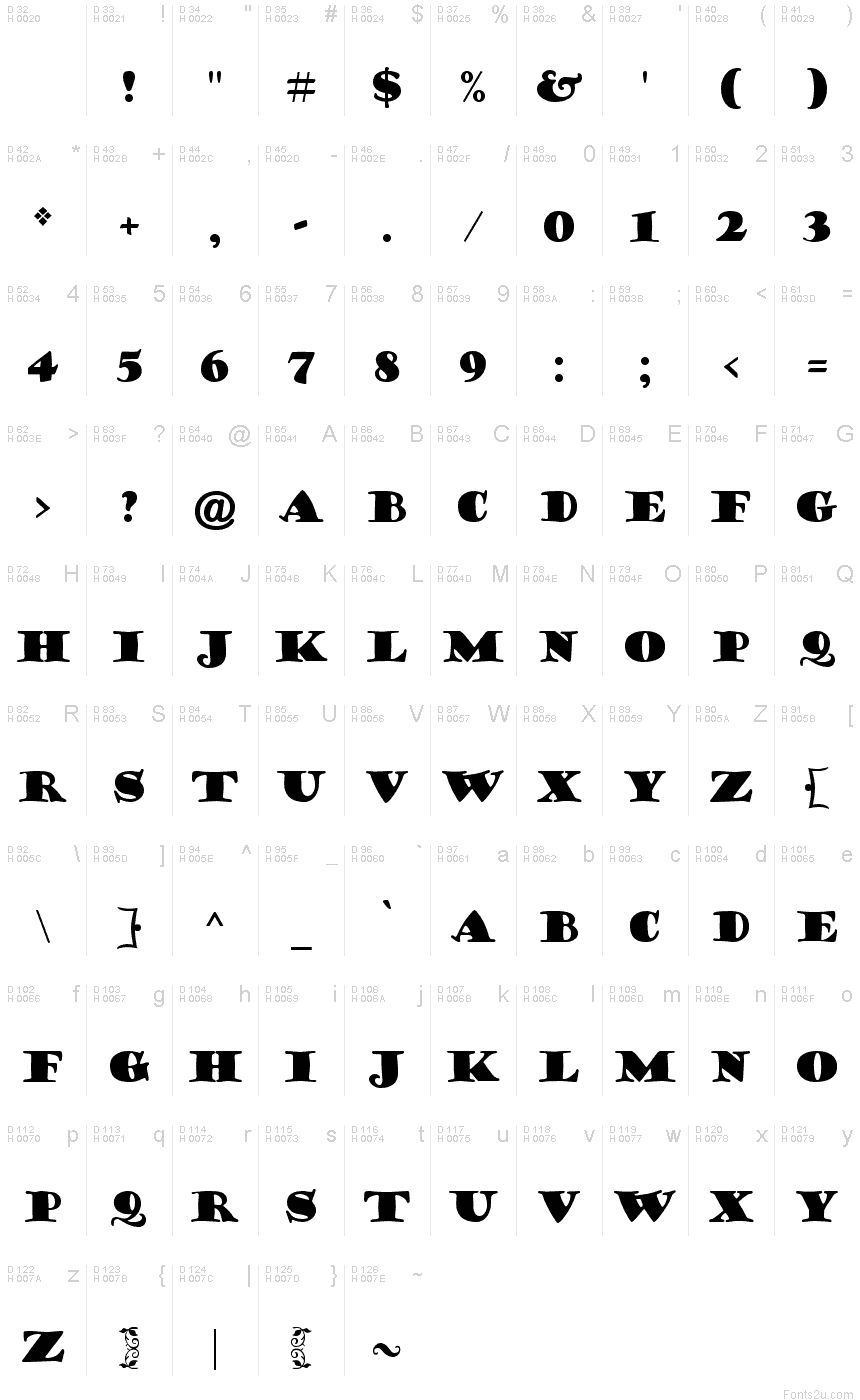
Goudy Stout
Goudy Stout font is a free retro headline typeface that lands on the page with a satisfying thud. Its letters are thick, inky, and slightly irregular, like they’ve been carved from rubber and pressed onto paper, giving every word a bold, bouncy presence. Rounded counters and chunky slabs create a fun, almost cartoonish weight that grabs attention from across the room without feeling stiff or mechanical.
Using Goudy Stout, you can turn simple words into loud, friendly graphics that feel straight out of a vintage poster shop. This free font shines on party invitations, playful logos, candy or snack packaging, retro branding, event posters, and kids’ book covers. Keep it big and bold, and pair Goudy Stout with a clean, light sans serif for smaller supporting text to keep your layouts readable and balanced.